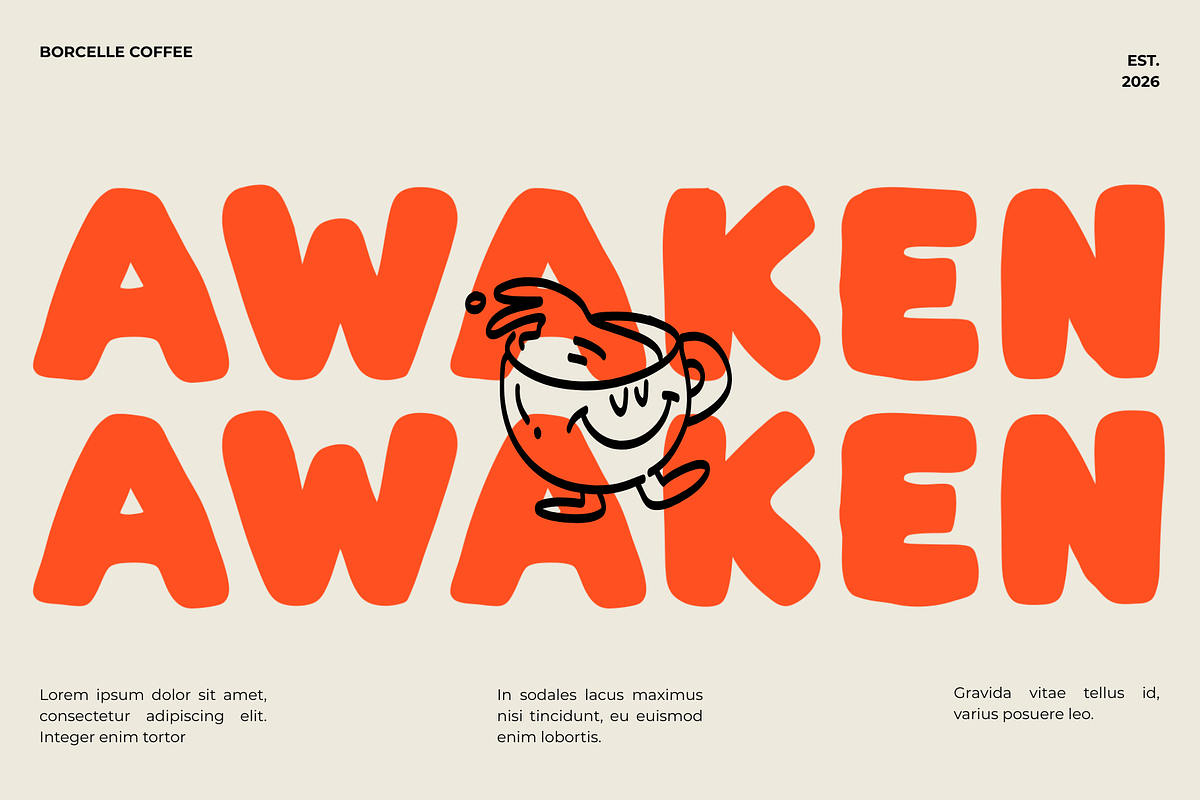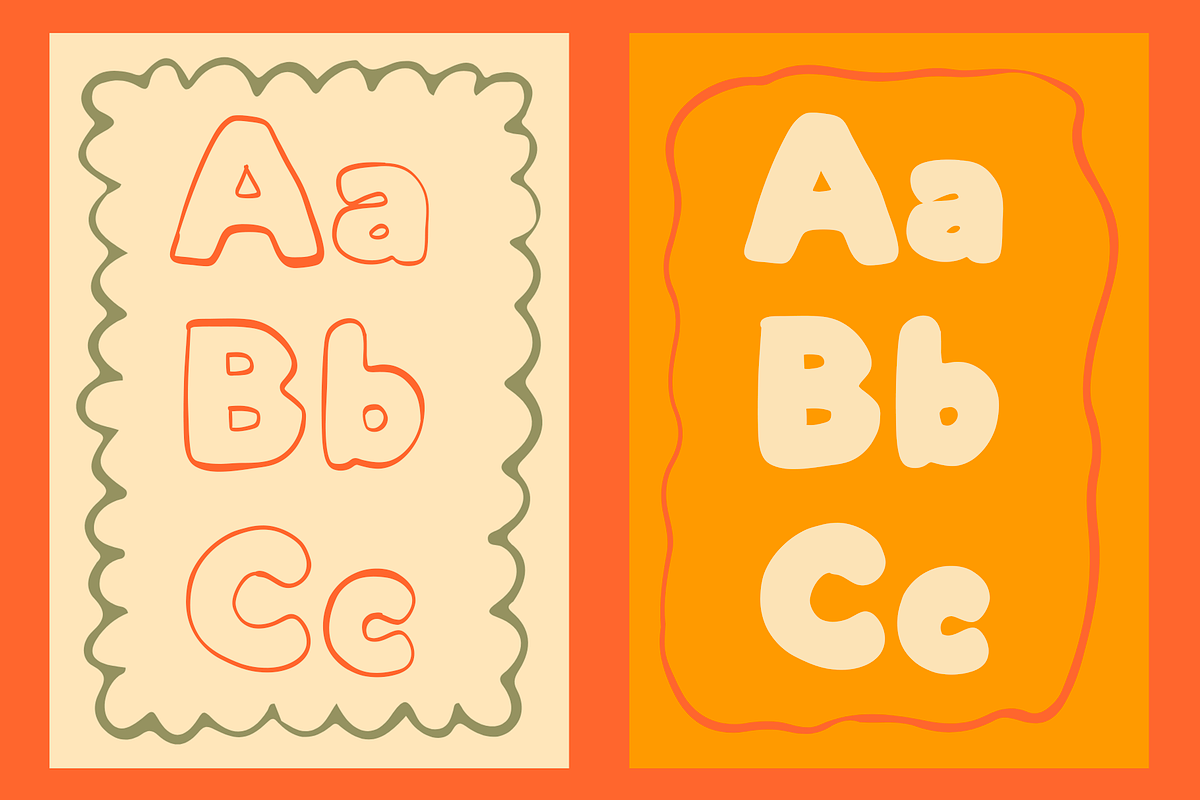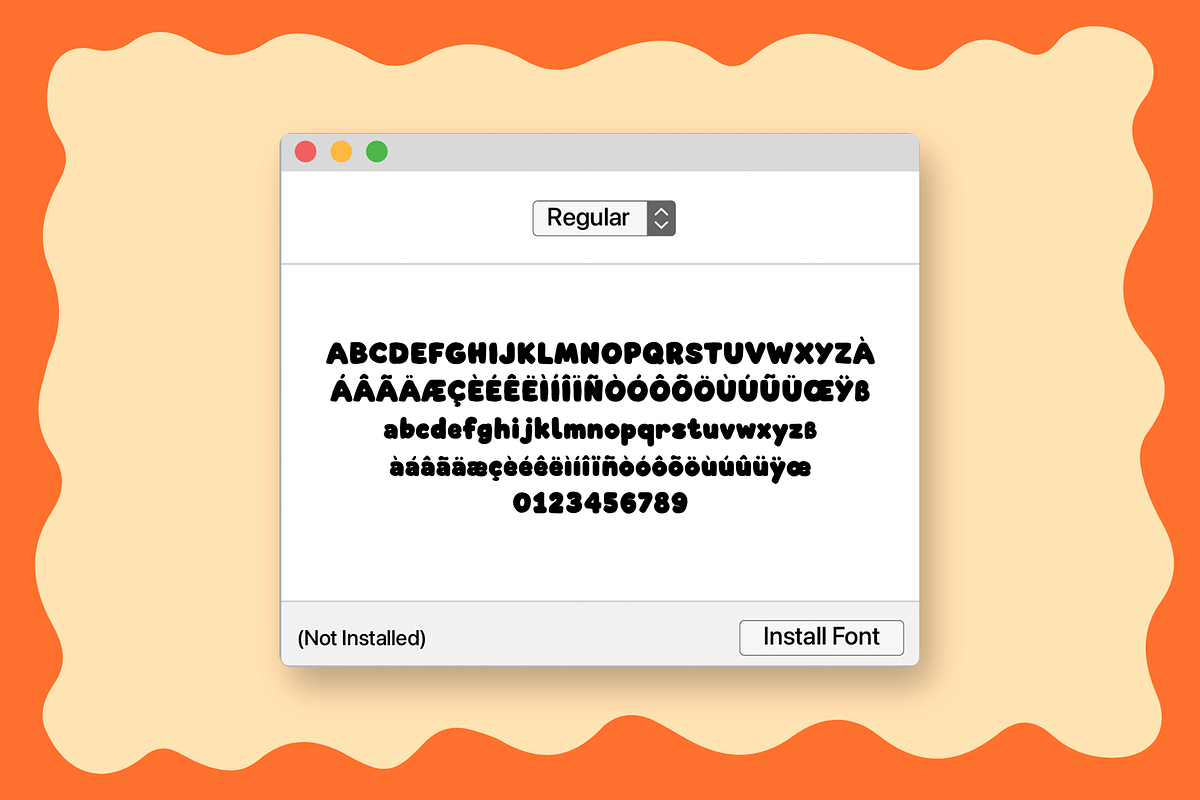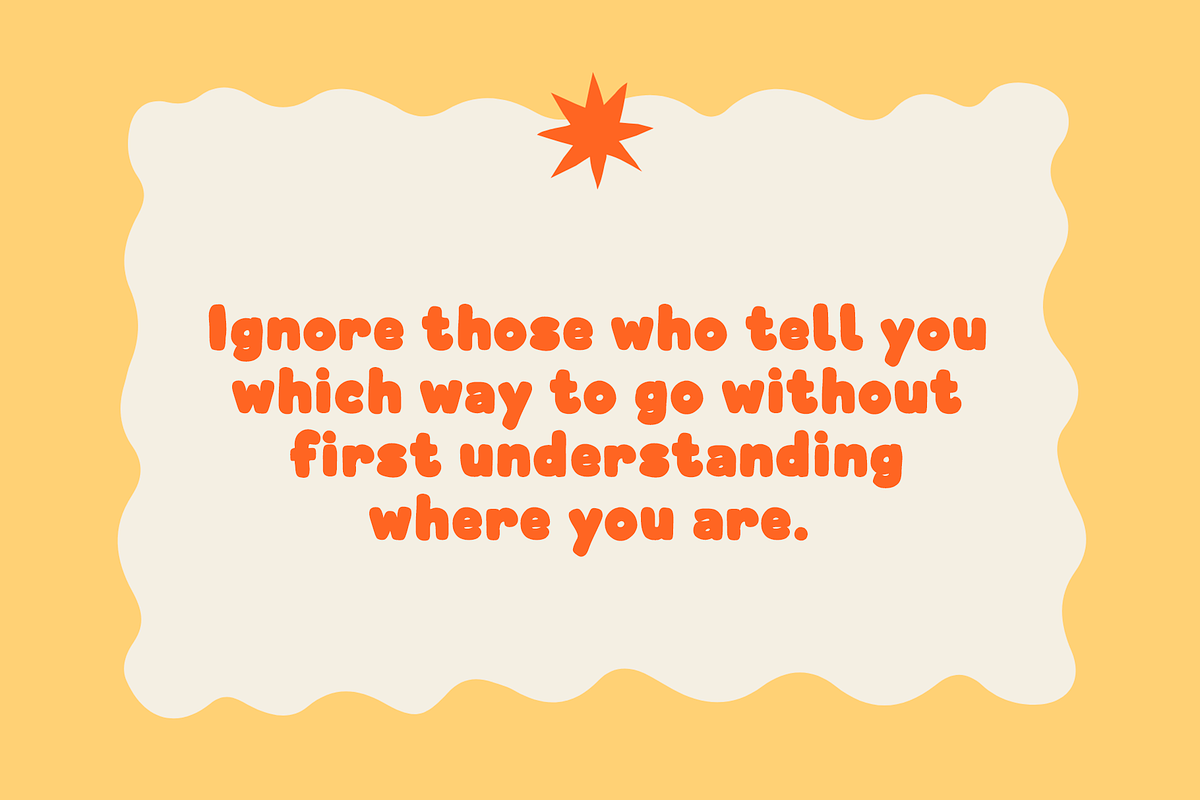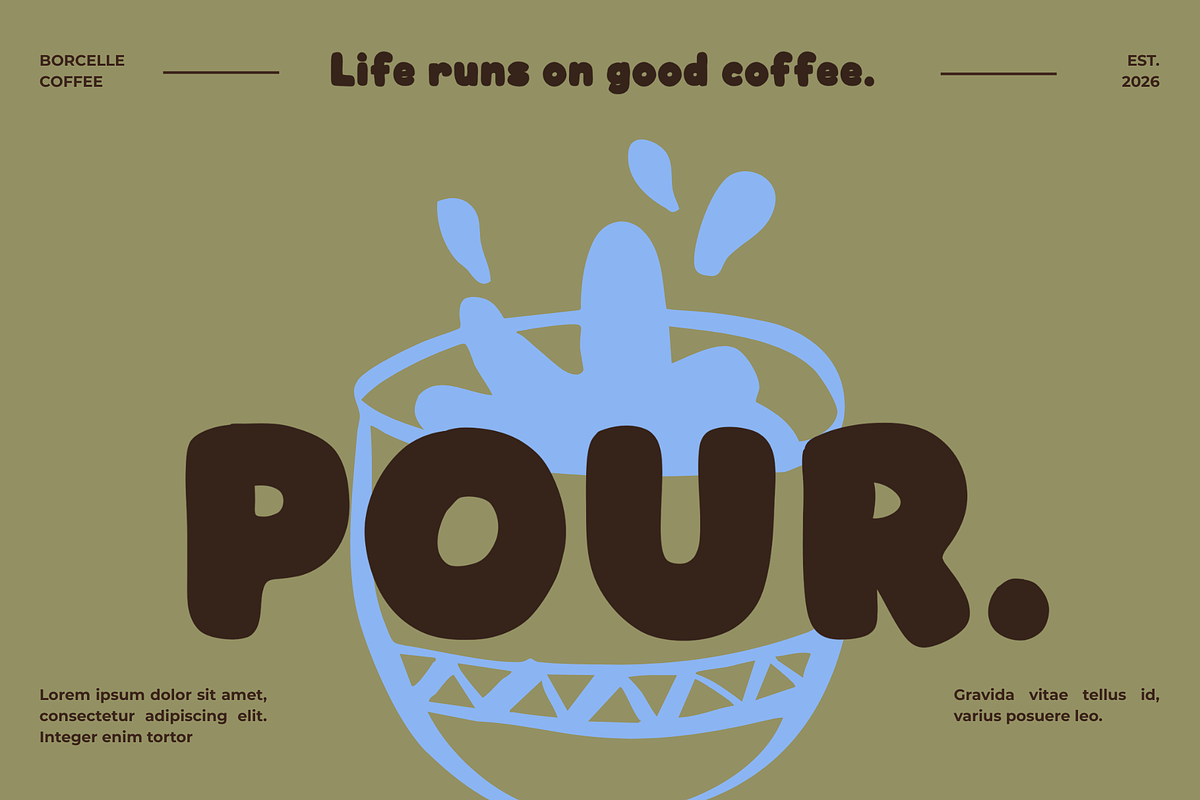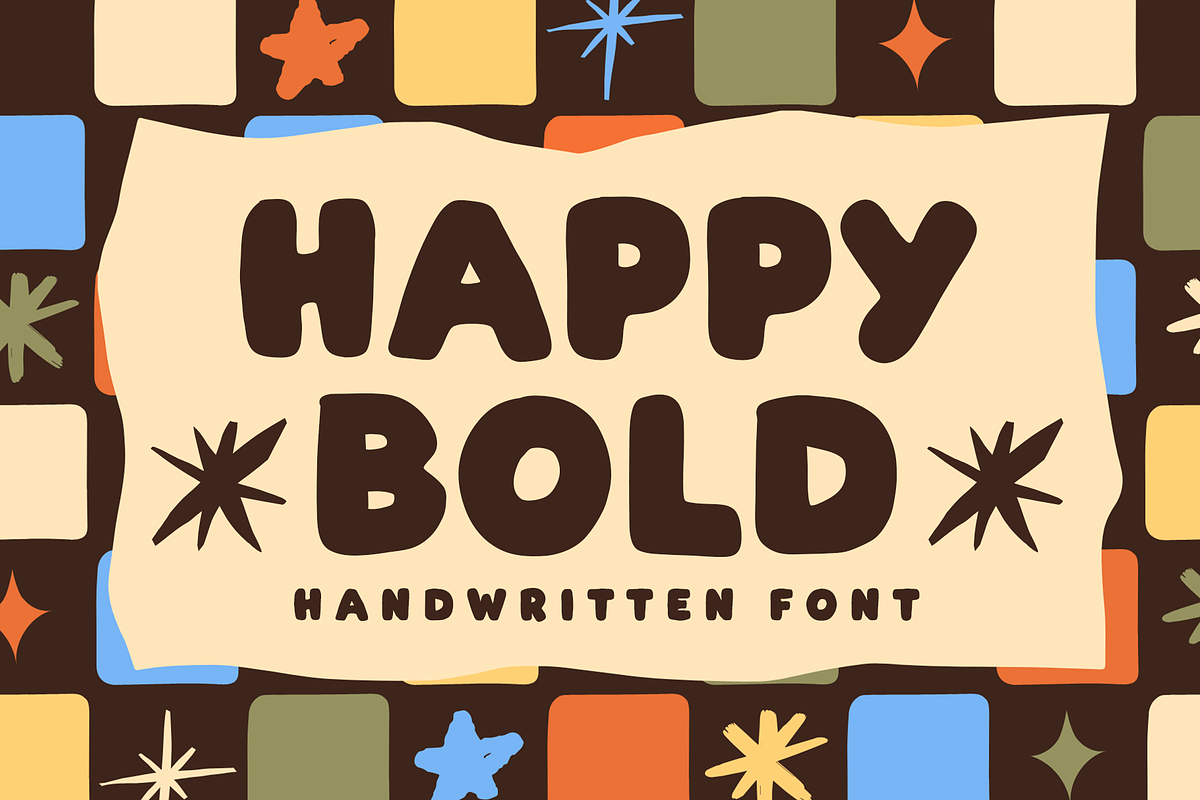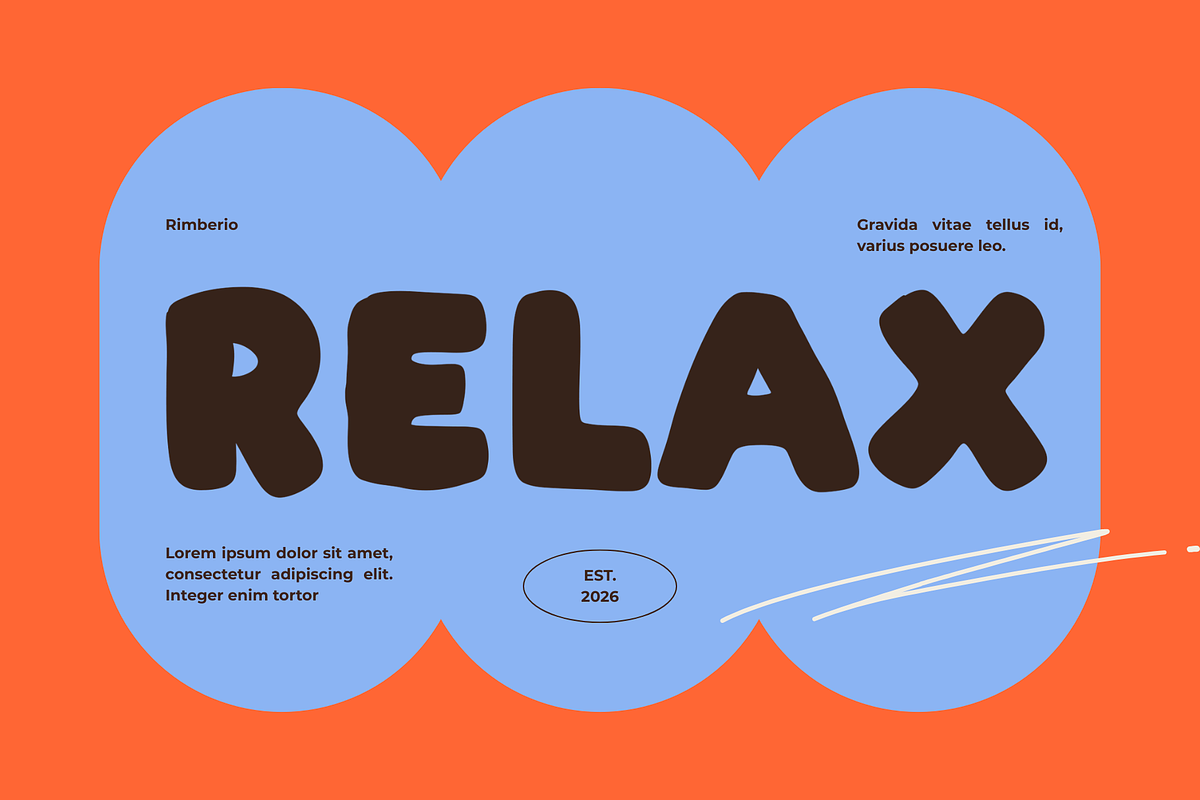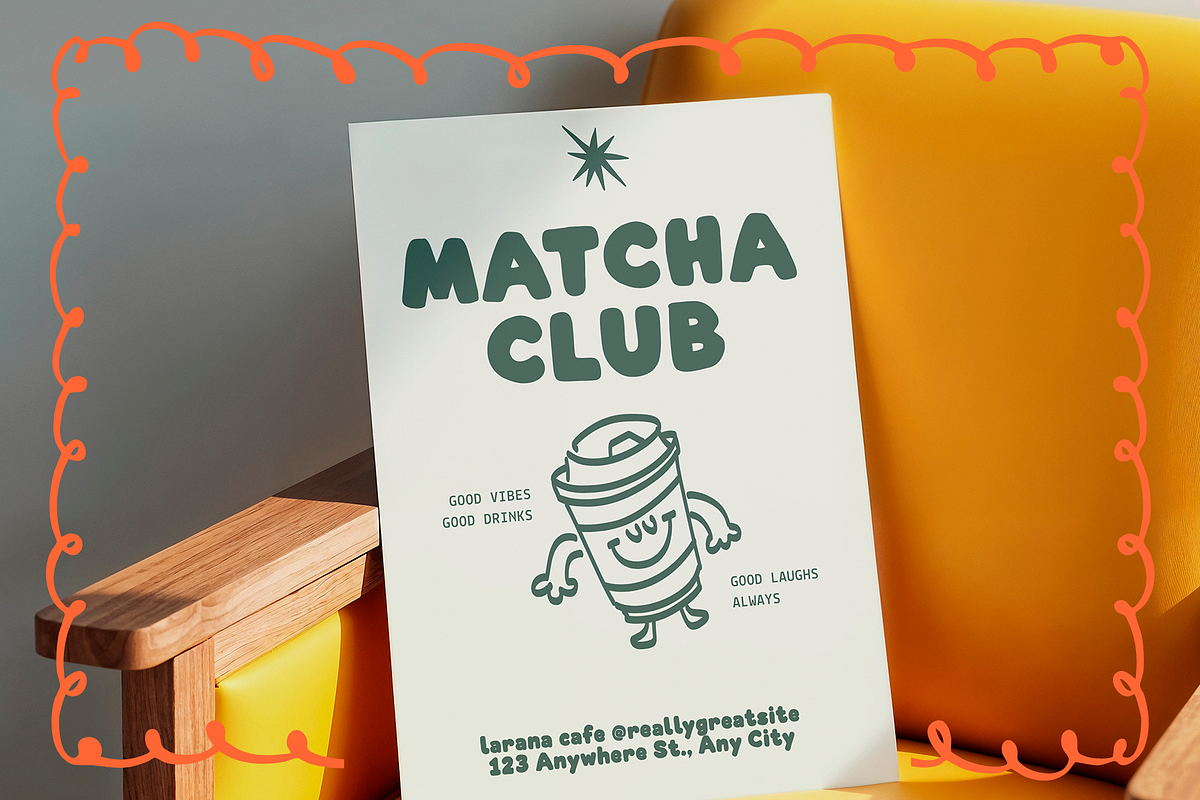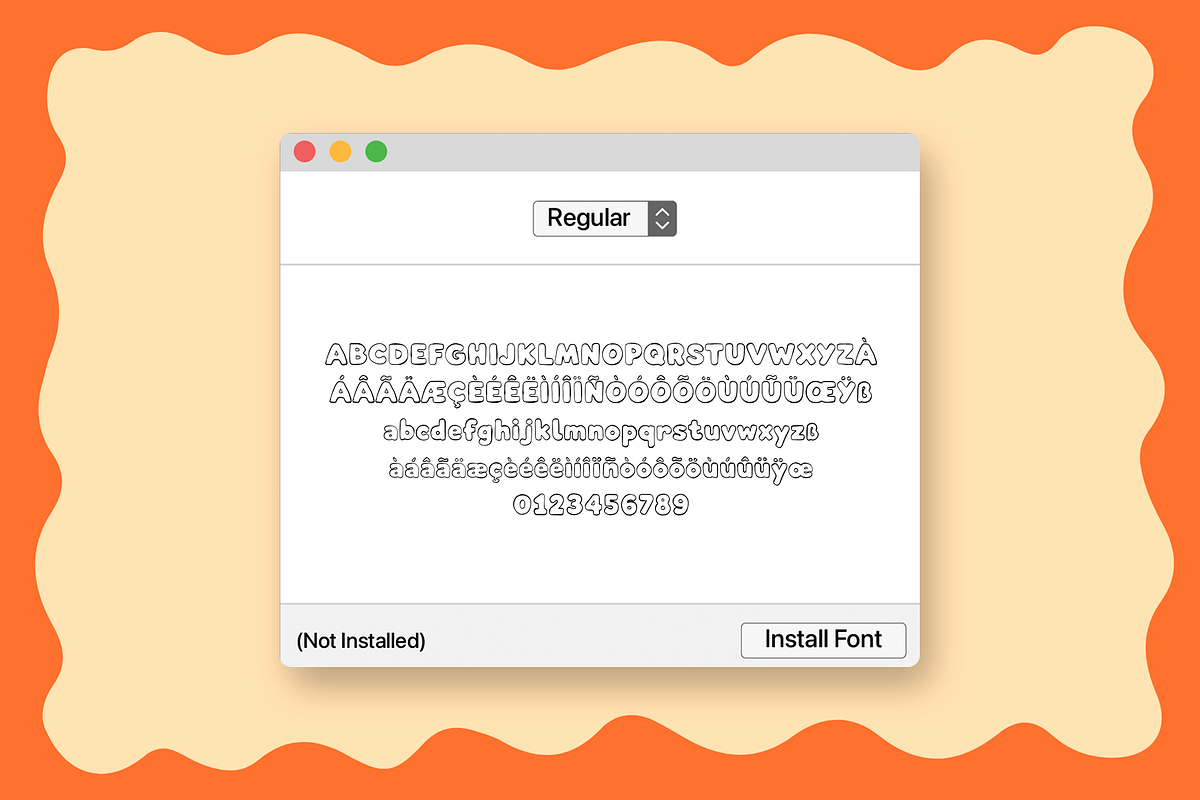
A Chunky Retro Handwritten Font
Bold, bubbly, and full of personality. Meet Happy Bold, a handcrafted display font designed to make your headers pop and your designs smile. With its thick, rounded strokes and organic, hand-drawn feel, this font brings a sense of warmth and "human touch" to every project. It’s the kind of font that doesn’t just sit on a page—it gives it a high-five.
Whether you're leaning into the 70s retro revival, creating gen-z aesthetic graphics, or building a brand that needs to feel approachable and fun, Happy Bold is your new go-to.
Groovy Branding & Logos: Perfect for bakeries, cafes, and small shops.
Statement Apparel: Think tote bags, oversized tees, and "Good Vibes" stickers.
Social Media Headers: Stop the scroll with bold, friendly TikTok and Instagram typography.
Packaging Design: Give your products a cozy, boutique feel.